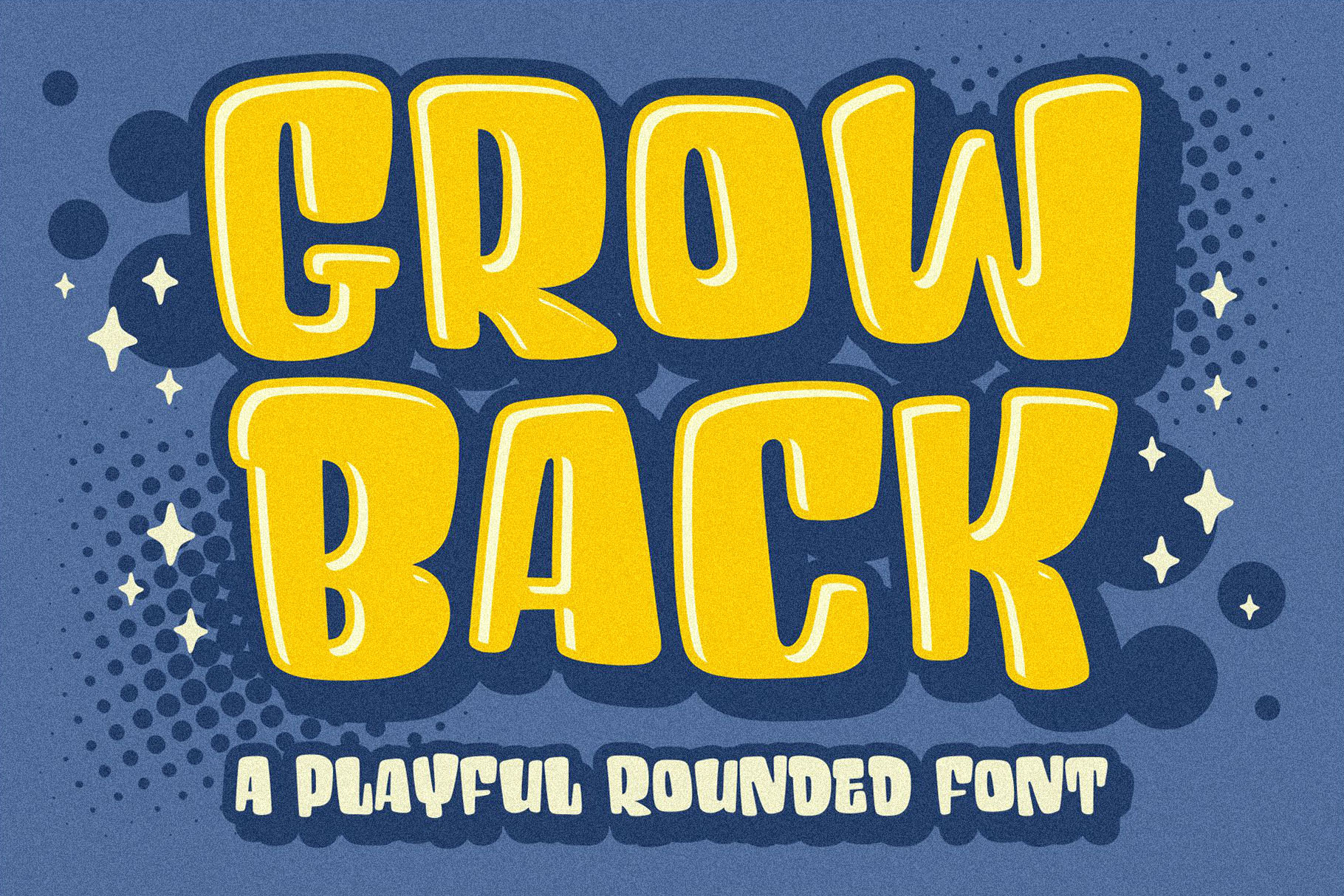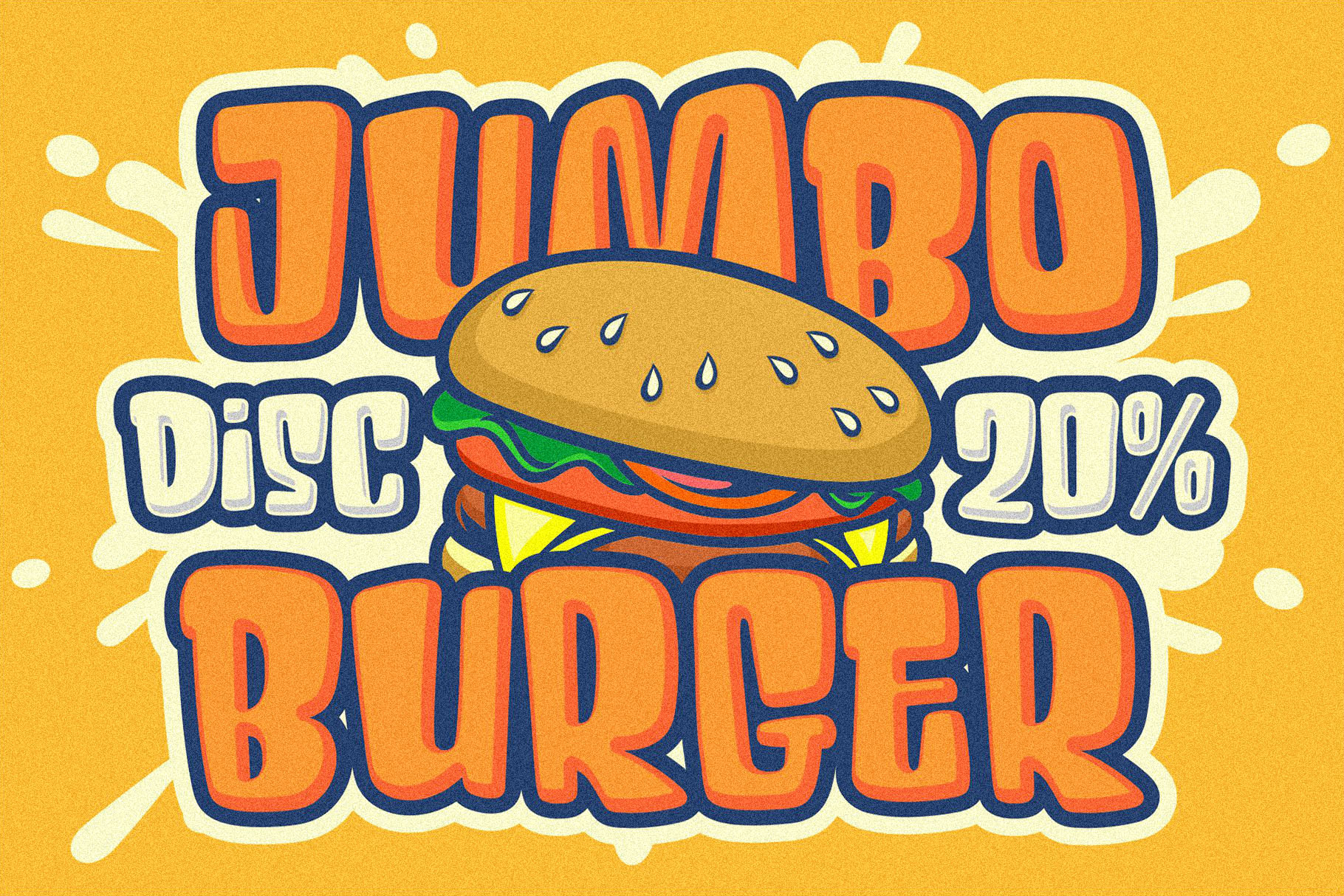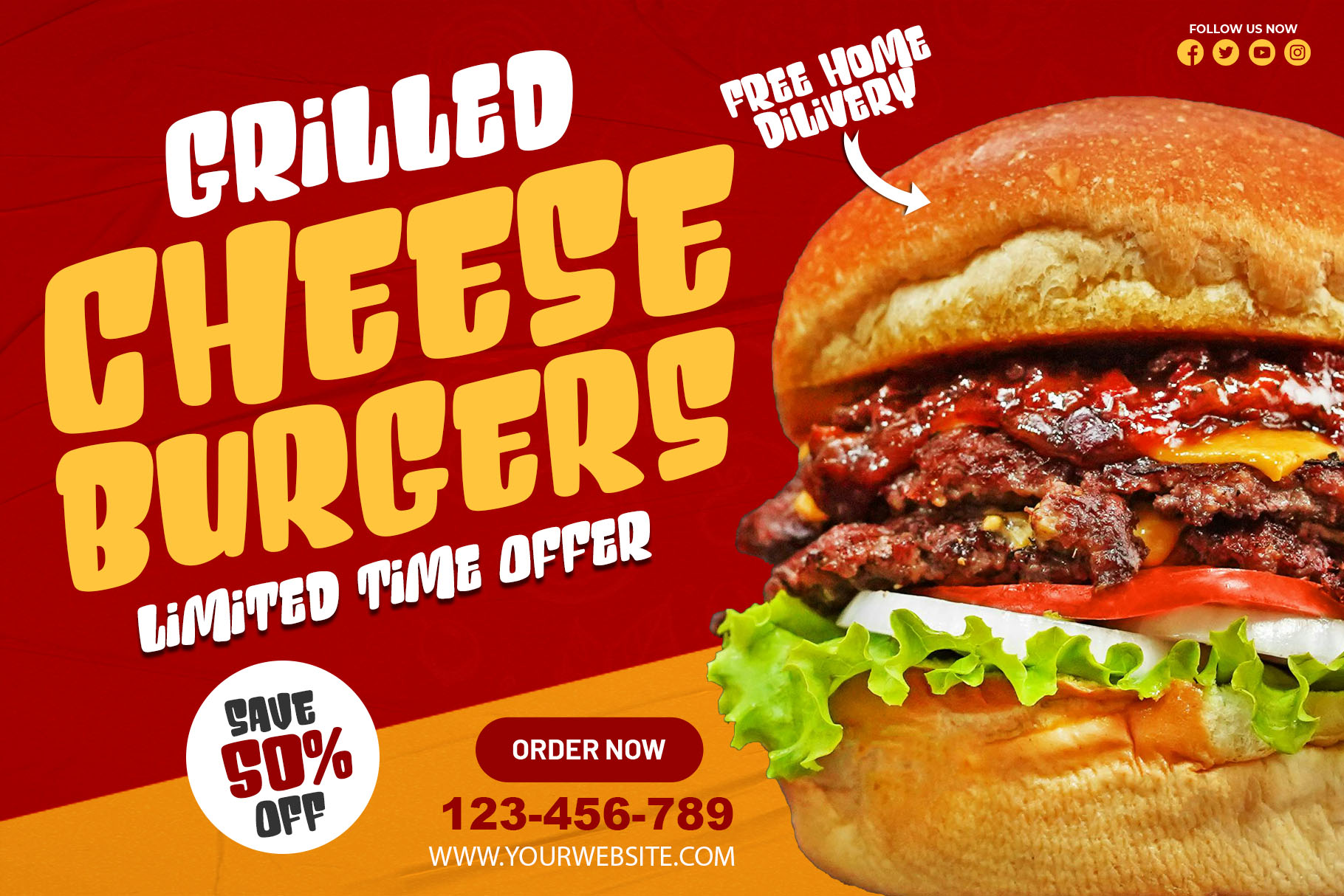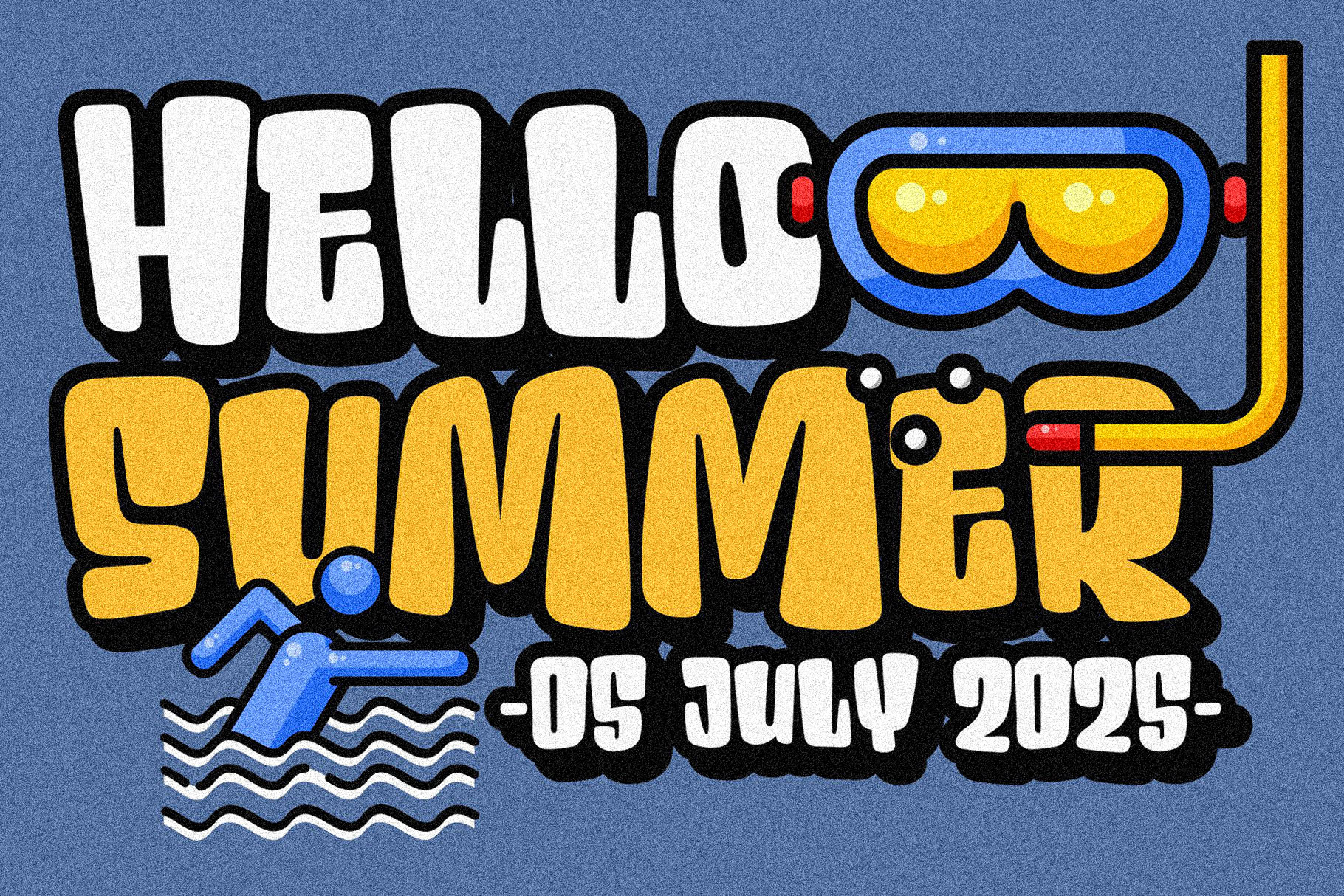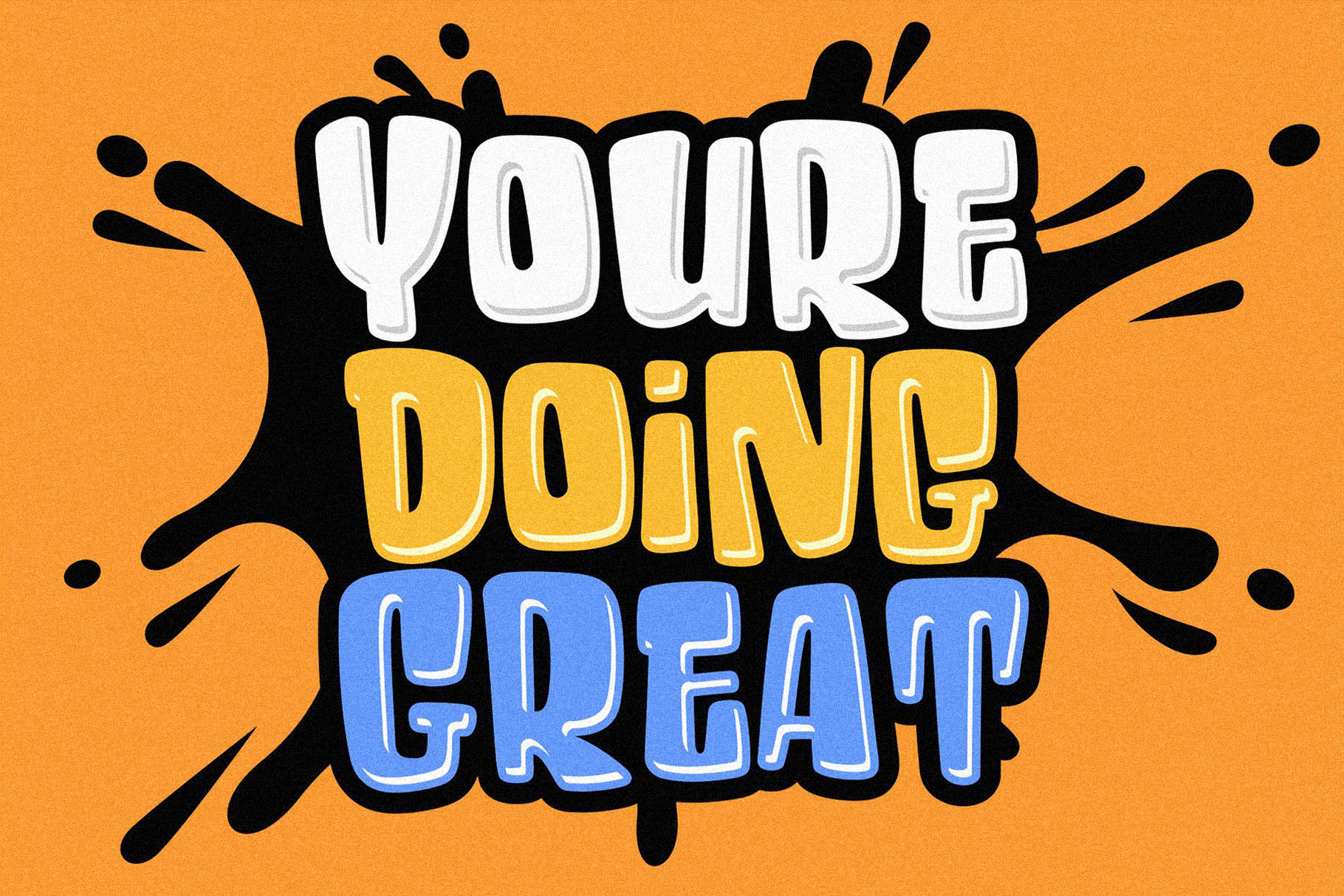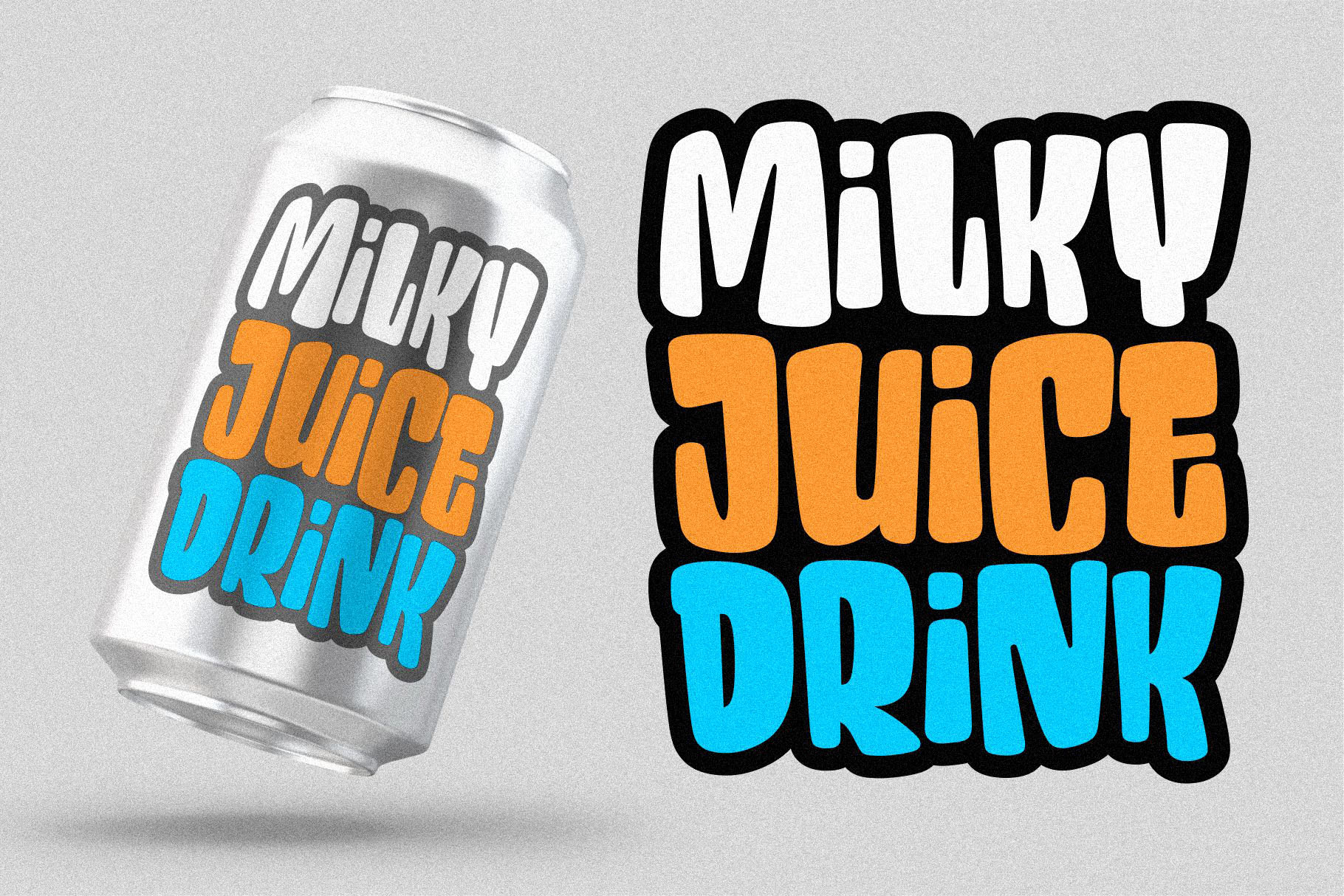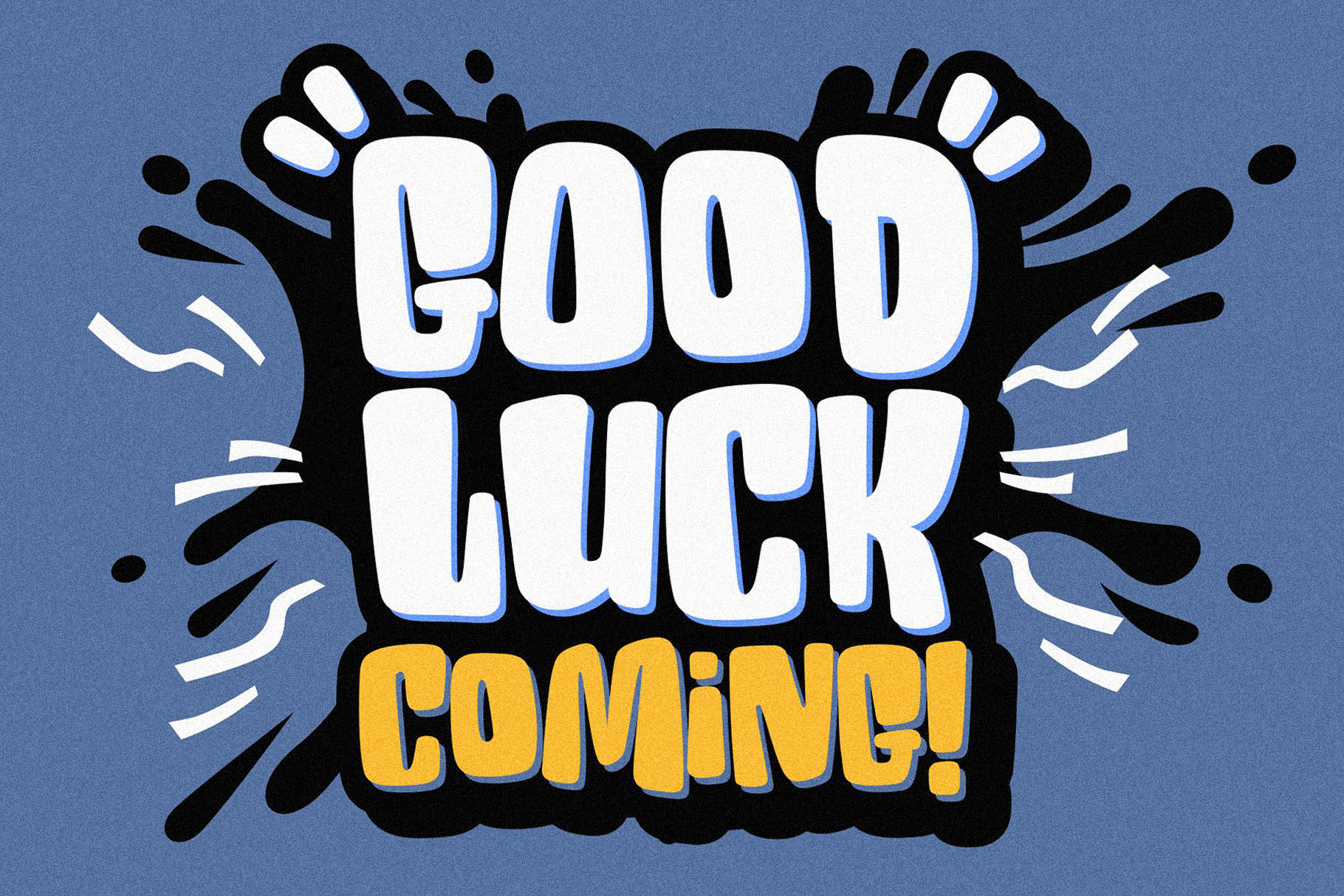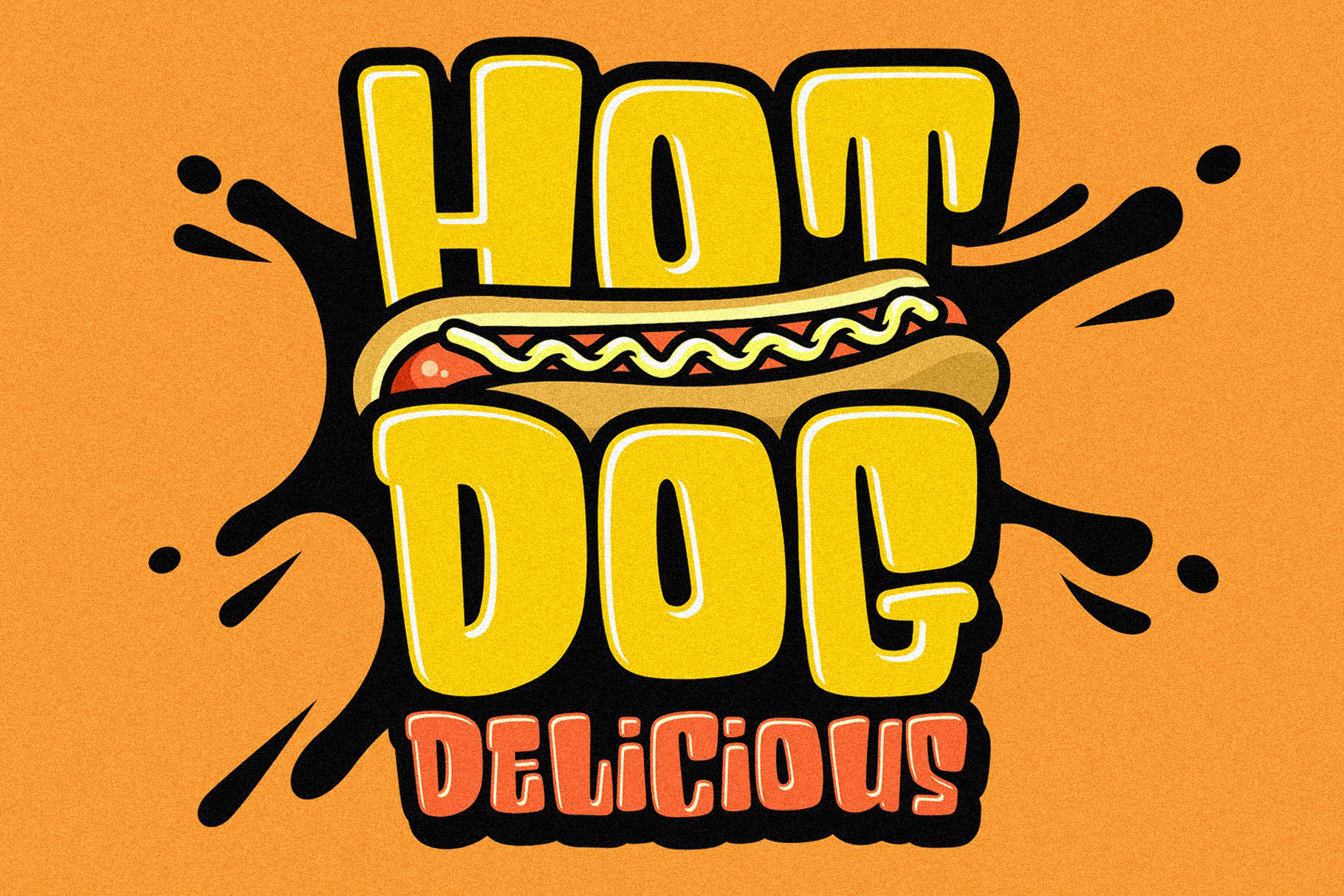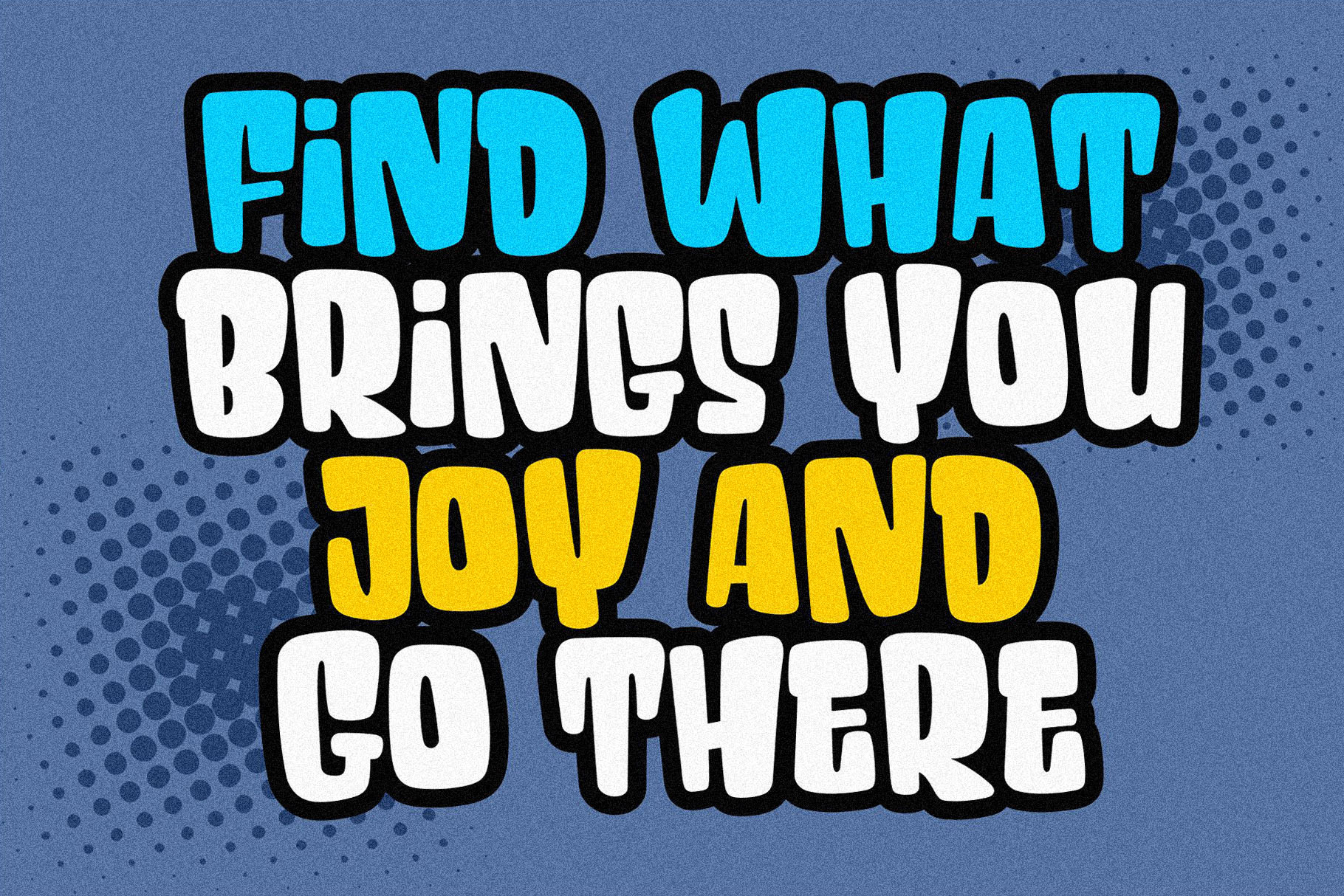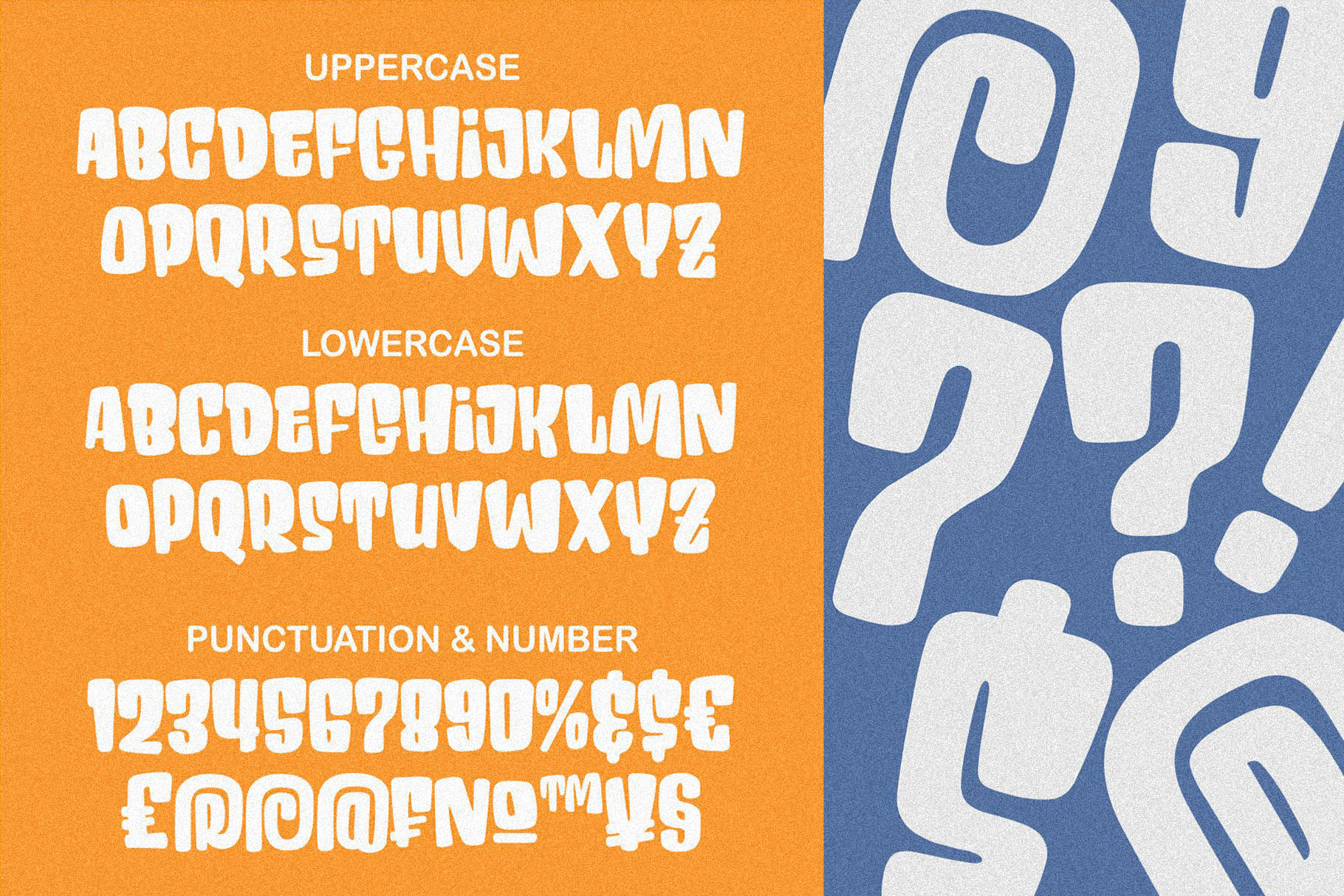
Grow Back – A Playful Rounded Font
Hello, let me introduce you to the new font I created, “Grow Back” which is made with unique and interesting characters, has a random anatomy of small and thick lines so that this font looks fun, not to forget its smooth, firm and slightly rounded shape.
“Grow Back” font is ideal for branding projects or packaging that need a quirky and playful feel. Perfect for a wide range of applications, from crafting eye-catching headings and dynamic logotypes to bringing energy to quotes, apparel, invitations, flyers, posters, greeting cards, product packaging, book covers, and printed quotes.
Features:
• Uppercase & Lowercase
• Numerals & Punctuation
• Ligatures
• Multilanguage Supports